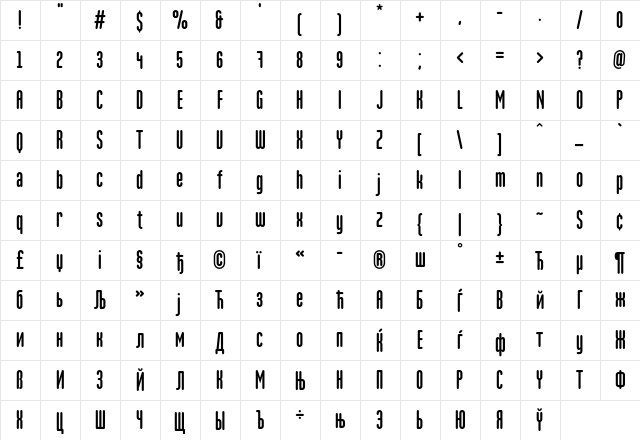
MartenCyr-Regular Regular
Design Context for MartenCyr-Regular Typeface
MartenCyr-Regular is a composed and adaptable typeface that performs quietly and consistently across a wide range of design contexts.